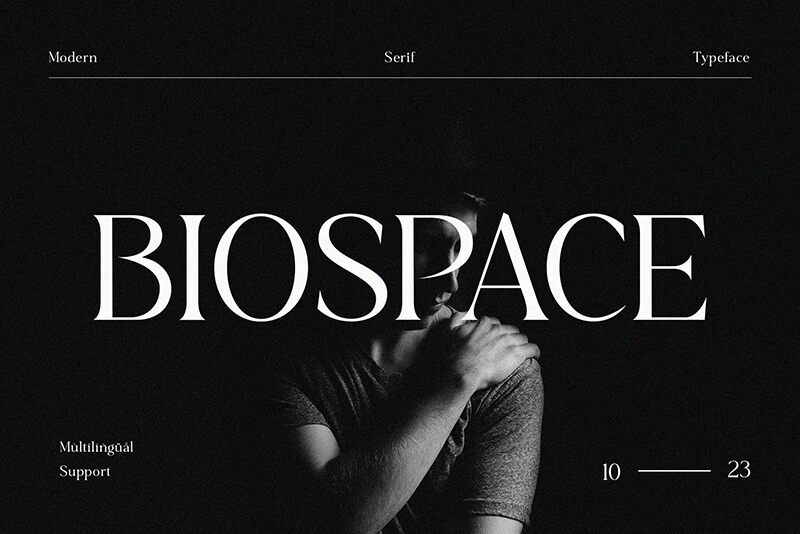
Biospace
Biospace emerges as a distinctive creation by Dwi Sulistyono, marrying the timelessness of serif fonts with a semi-light weight that exudes both elegance and modernity. Upon examination, its serifs are thoughtfully crafted, offering subtle sophistication. The deliberate use of semi-light weight imparts an airy quality to the typeface, ensuring legibility while maintaining an upscale aesthetic.
Visually, Biospace strikes a balance between classic appeal and contemporary finesse. Its clean lines and understated curves suggest versatility for various creative projects—be it editorial design where readability is paramount or branding where first impressions count. The font's understated charm is particularly well-suited for sophisticated publishing layouts, minimalist web design, and tasteful logo creation.
With its blend of traditional structure and fresh execution, Biospace is poised to enhance any project demanding a font that speaks with clarity without sacrificing style.